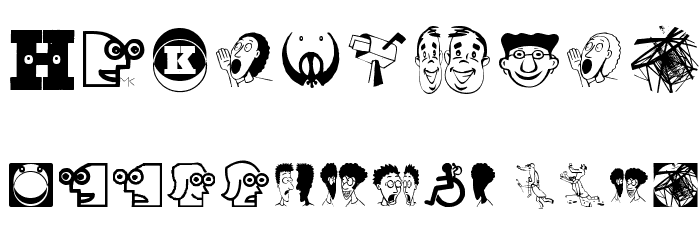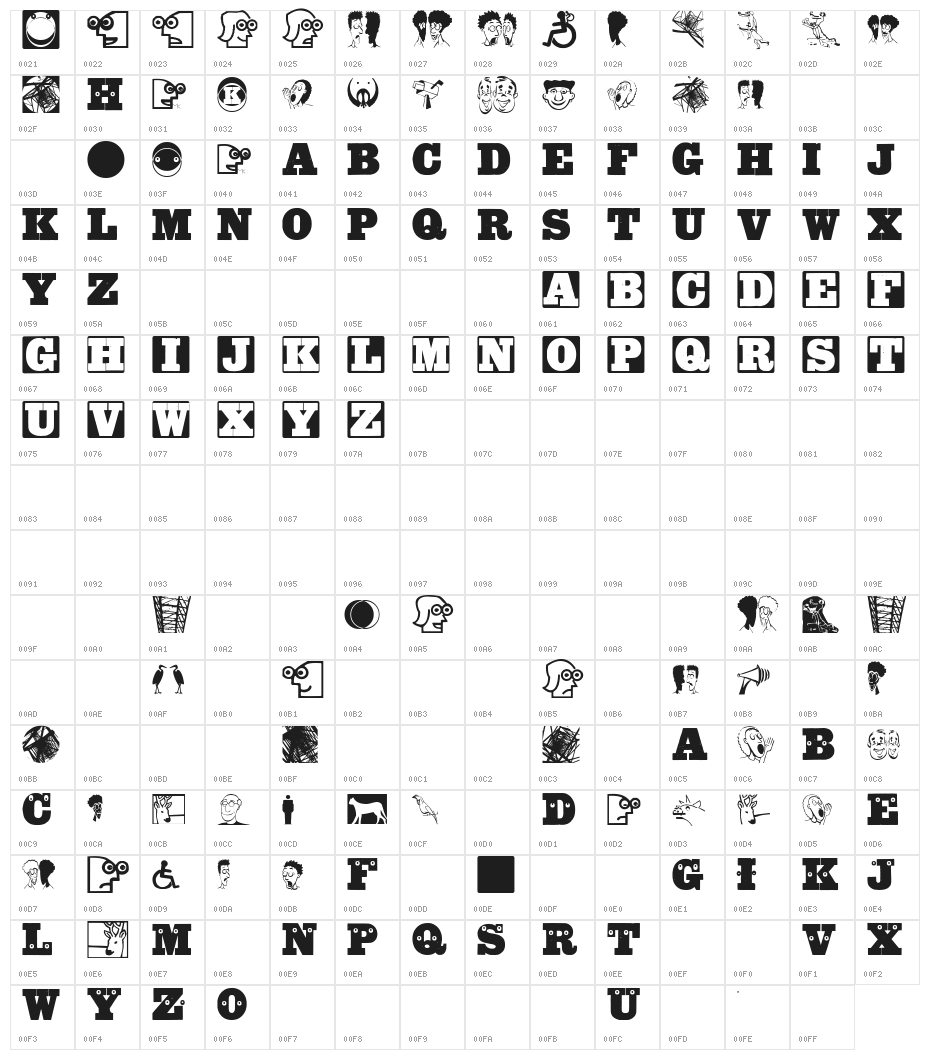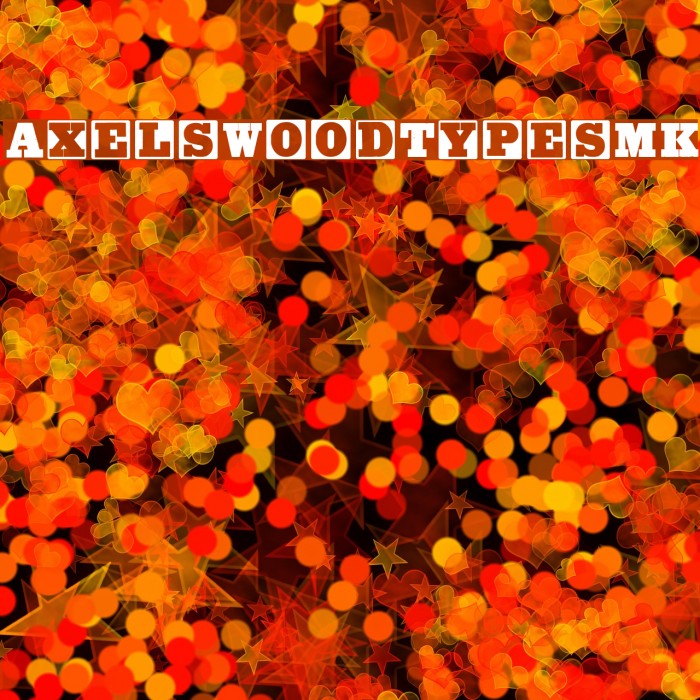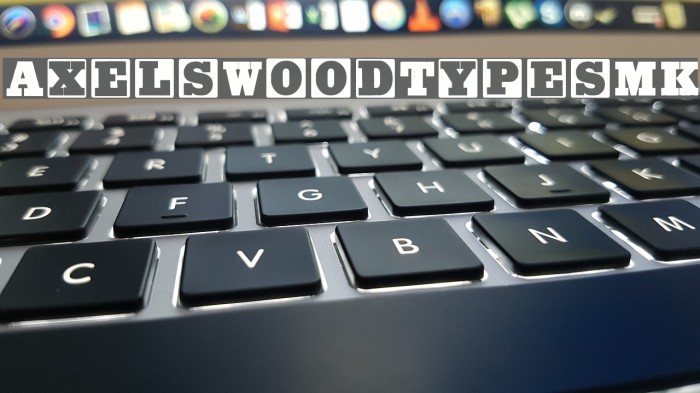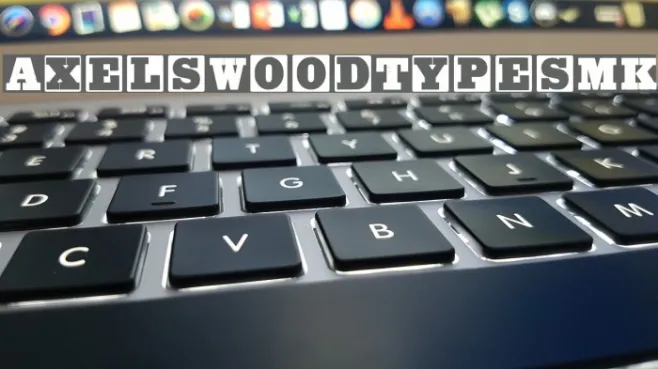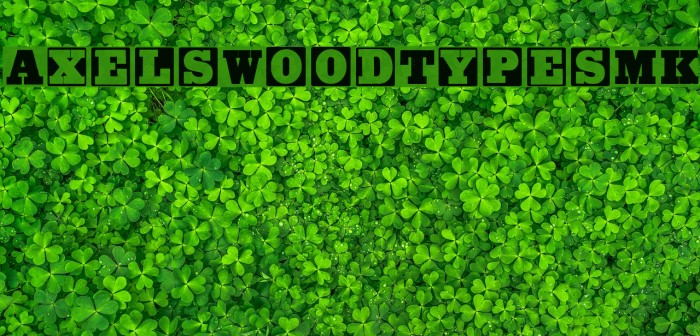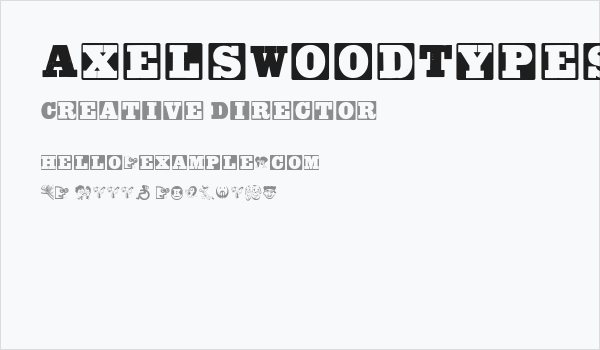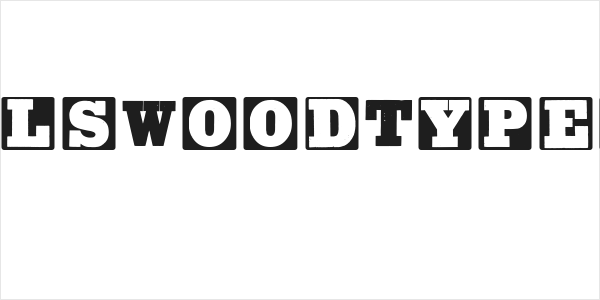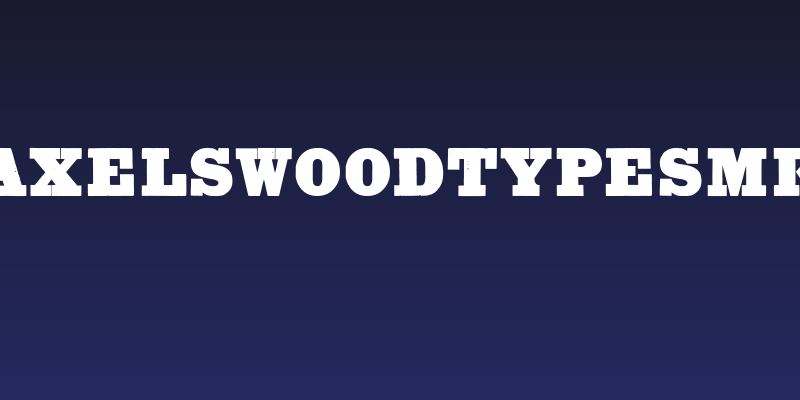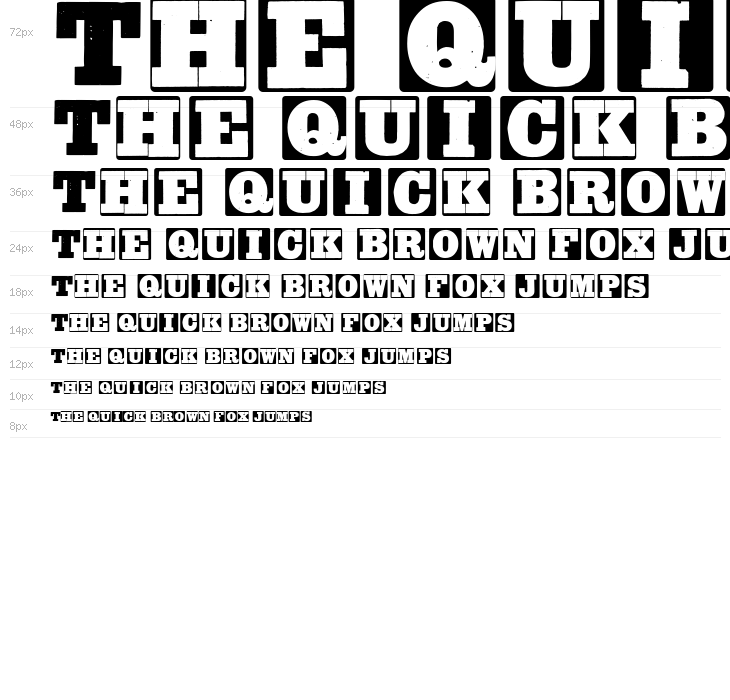
AxelsWoodTypesMK Font
AxelsWoodTypesMK Description
This font features bold, blocky letters with a strong presence, ideal for making a statement. The uppercase letters are designed with a slab serif style, giving them a sturdy and robust appearance. The characters are enclosed in squares, adding a unique and decorative touch. The font includes a variety of whimsical and playful special characters, such as faces and abstract shapes, which add a creative flair. The overall design is reminiscent of vintage wood type, often used in traditional printing presses, giving it a nostalgic and classic feel.